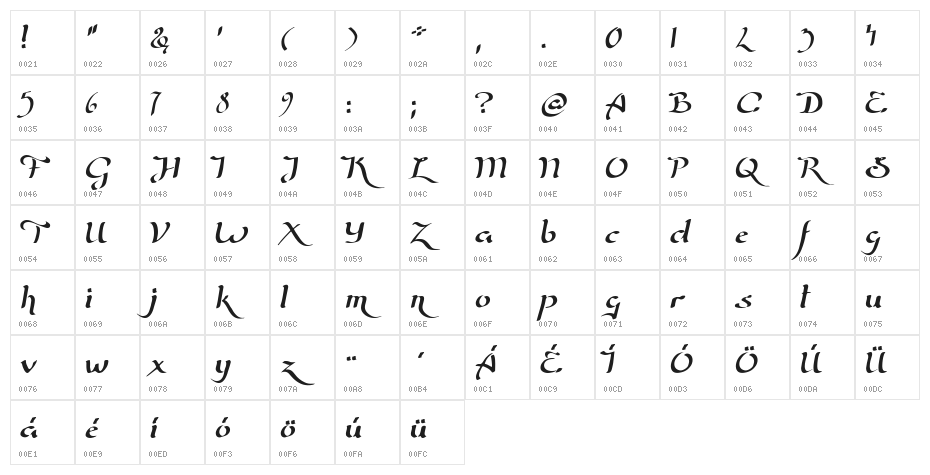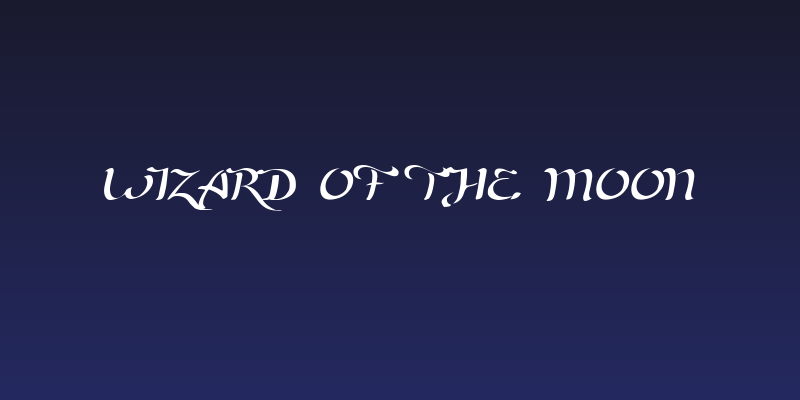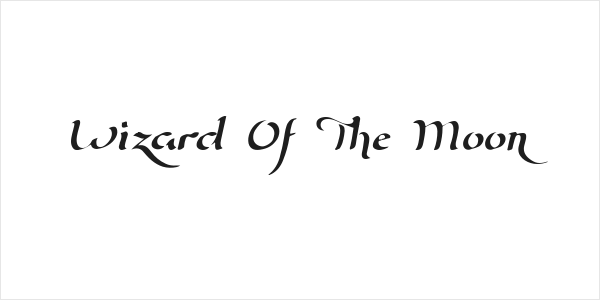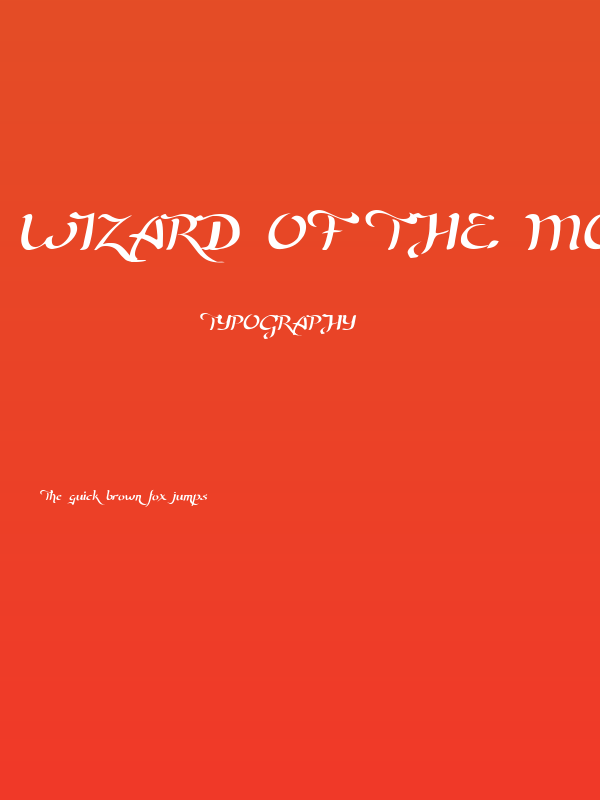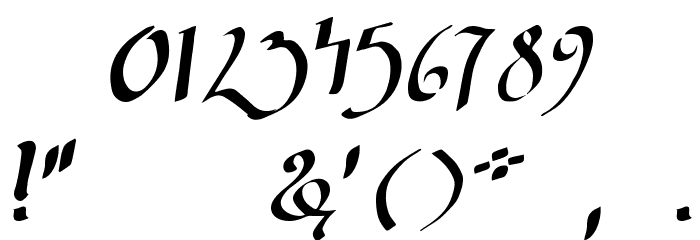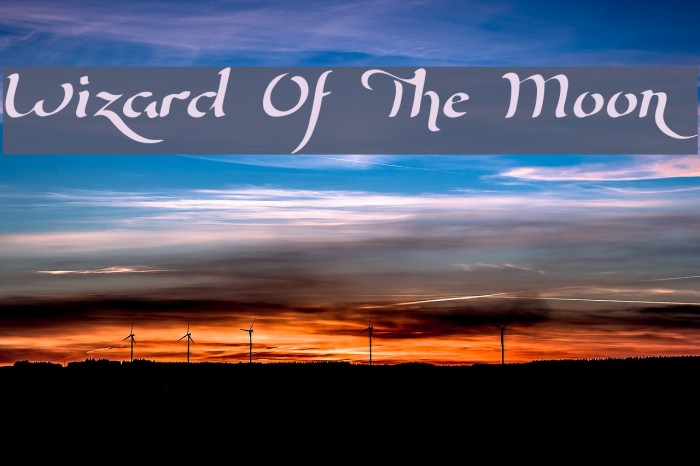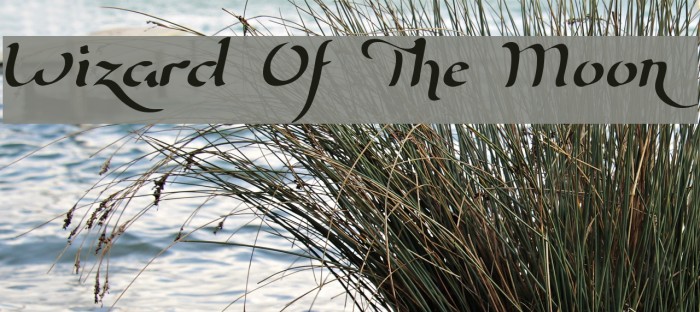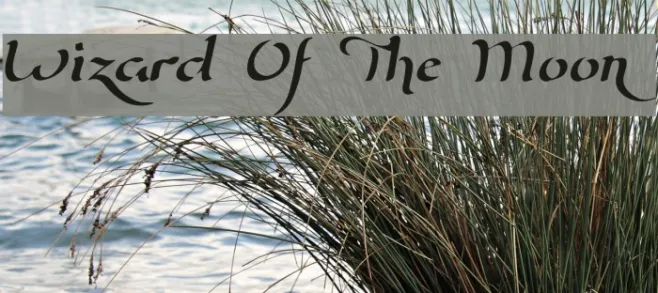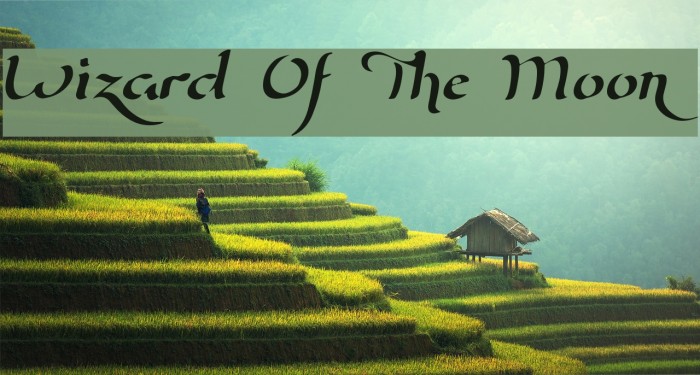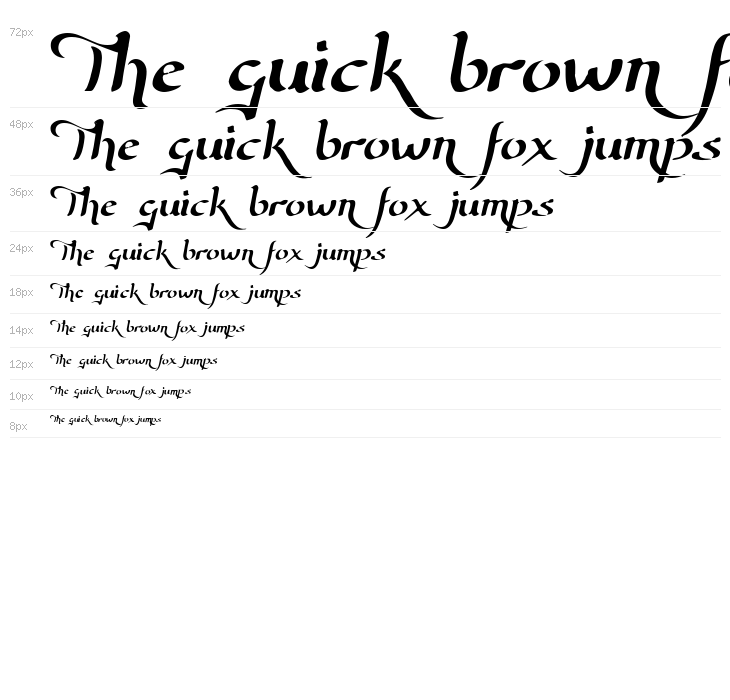
Wizard Of The Moon Font
Wizard Of The Moon Description
This font features an elegant and mystical design, characterized by its flowing, calligraphic style. The letters have a distinct, hand-drawn appearance with sharp, pointed serifs and sweeping curves that evoke a sense of enchantment and fantasy. The uppercase letters are particularly ornate, with intricate details that add to the font's decorative appeal. The lowercase letters maintain a consistent style, with smooth transitions and a slightly italicized slant. Numbers and special characters are designed to match the overall aesthetic, ensuring a cohesive look across all text elements.
| Proposed Projects | Ideal for fantasy-themed projects, book covers, invitations, and branding that requires a touch of magic and elegance. |